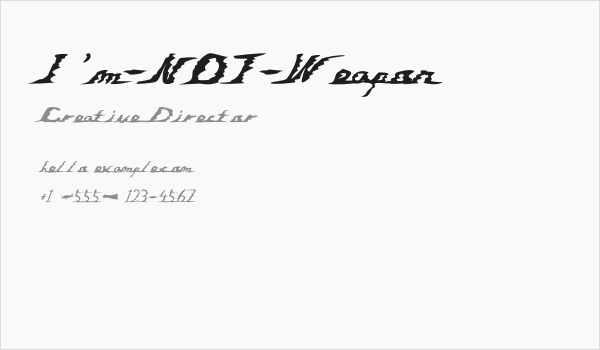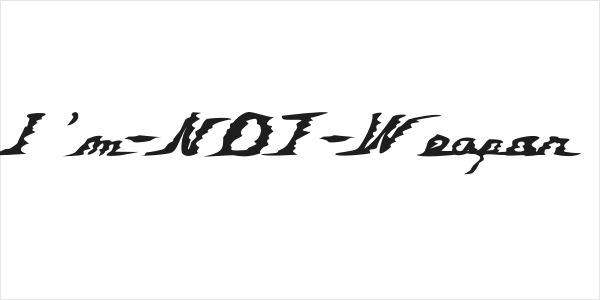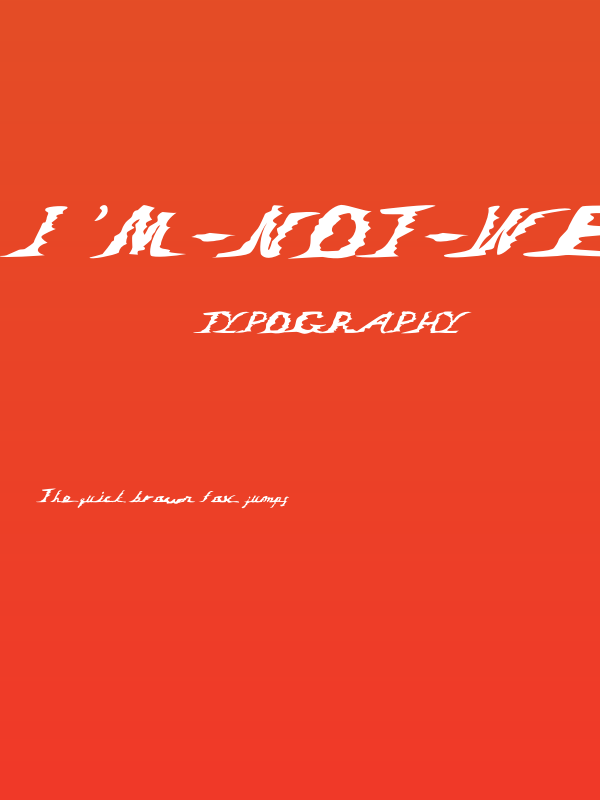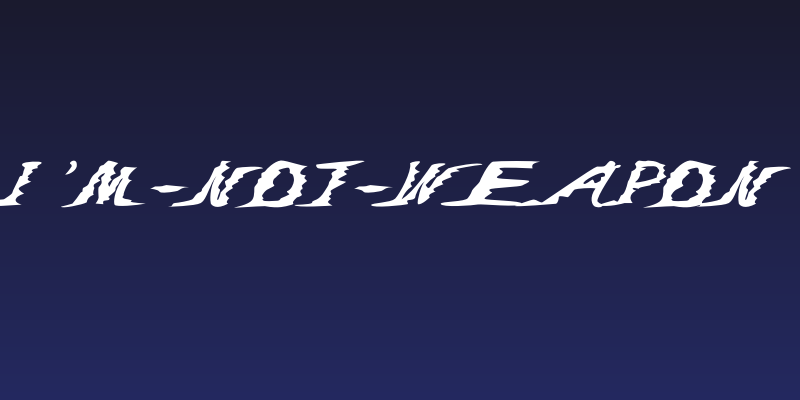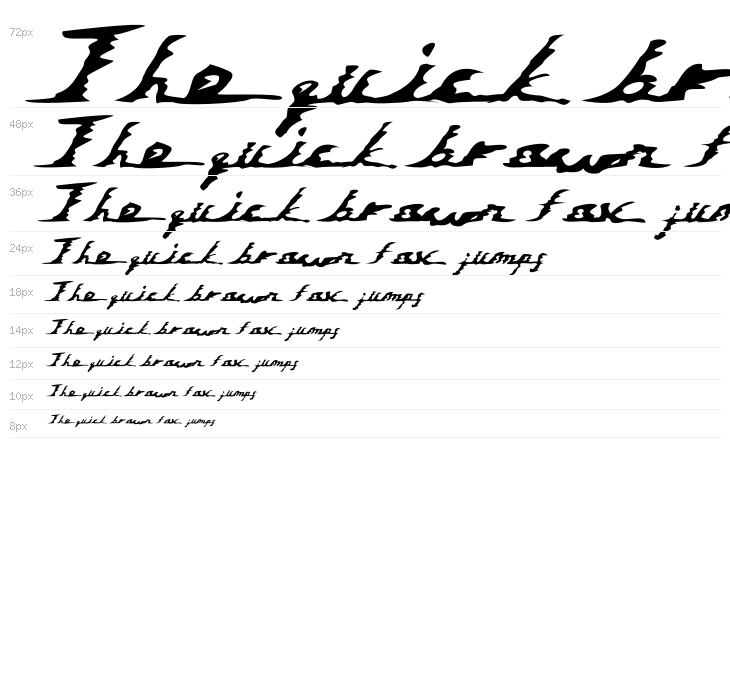
I'm-NOT-Weapon Font
I'm-NOT-Weapon Description
This font features a highly stylized and artistic design, characterized by its jagged, sharp edges and dynamic, flowing strokes. The letters appear to be in motion, with a sense of urgency and energy that makes them stand out. The uppercase and lowercase letters maintain a consistent style, with exaggerated curves and pointed terminals. The numbers and special characters follow the same aesthetic, adding to the cohesive look of the font. The overall appearance is bold and eye-catching, making it suitable for creative and unconventional projects.
Overall StyleModern, Artistic
Use CaseHeadlines, Logos, Artistic designs
Proposed ProjectsIdeal for album covers, posters, graffiti art, or any project requiring a bold, artistic touch.